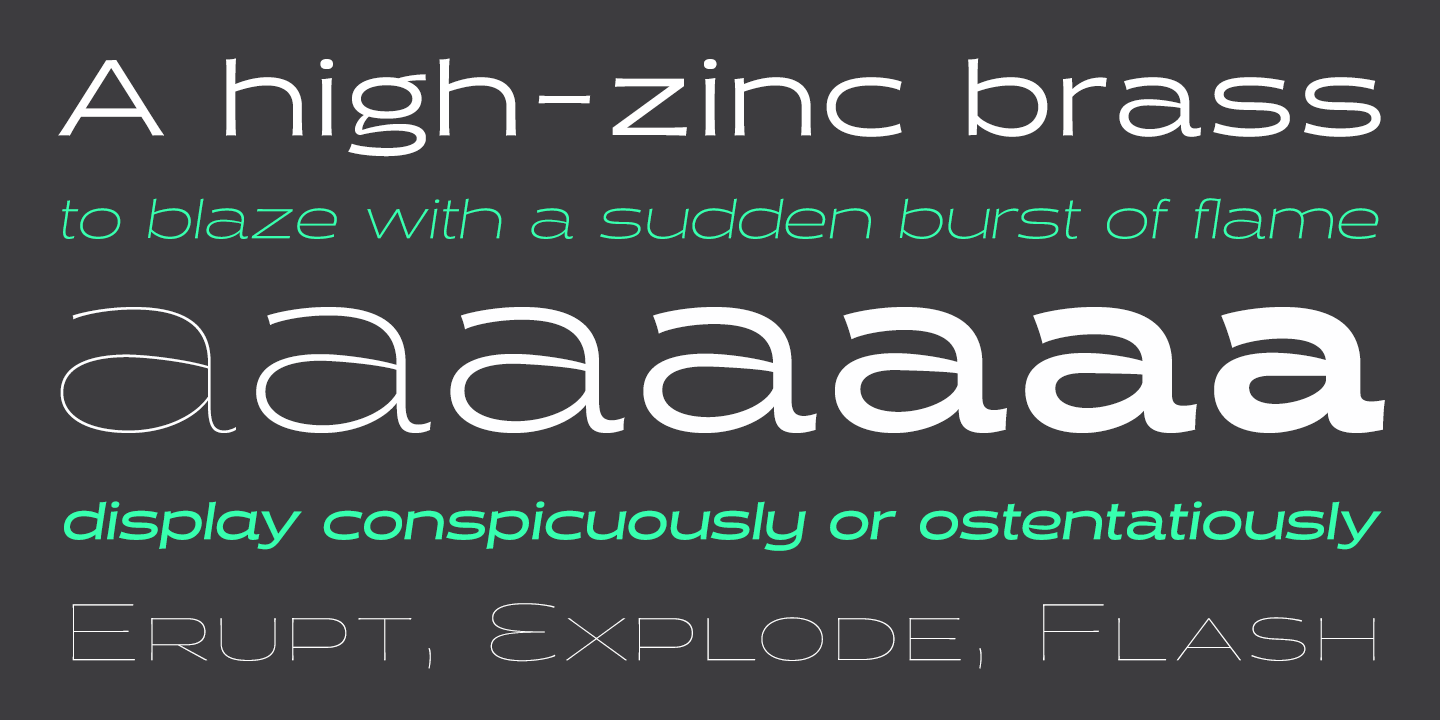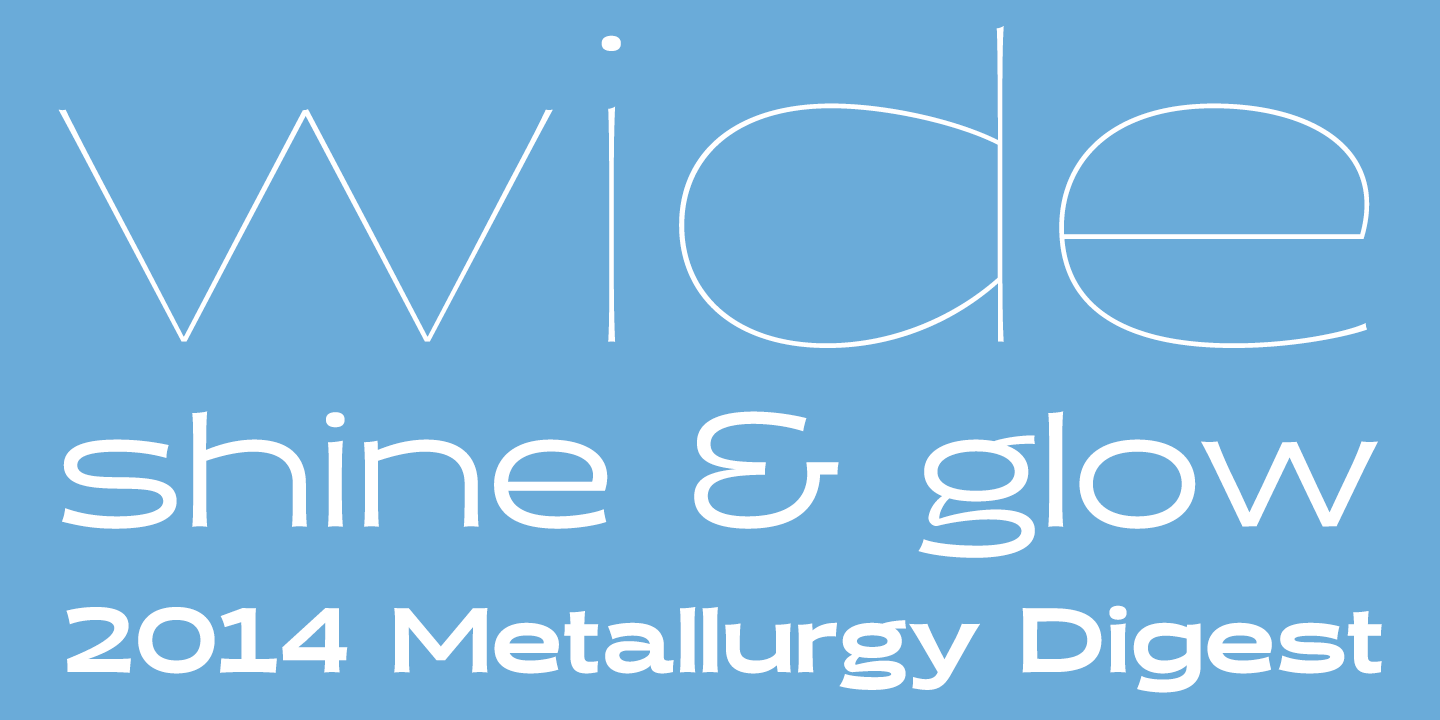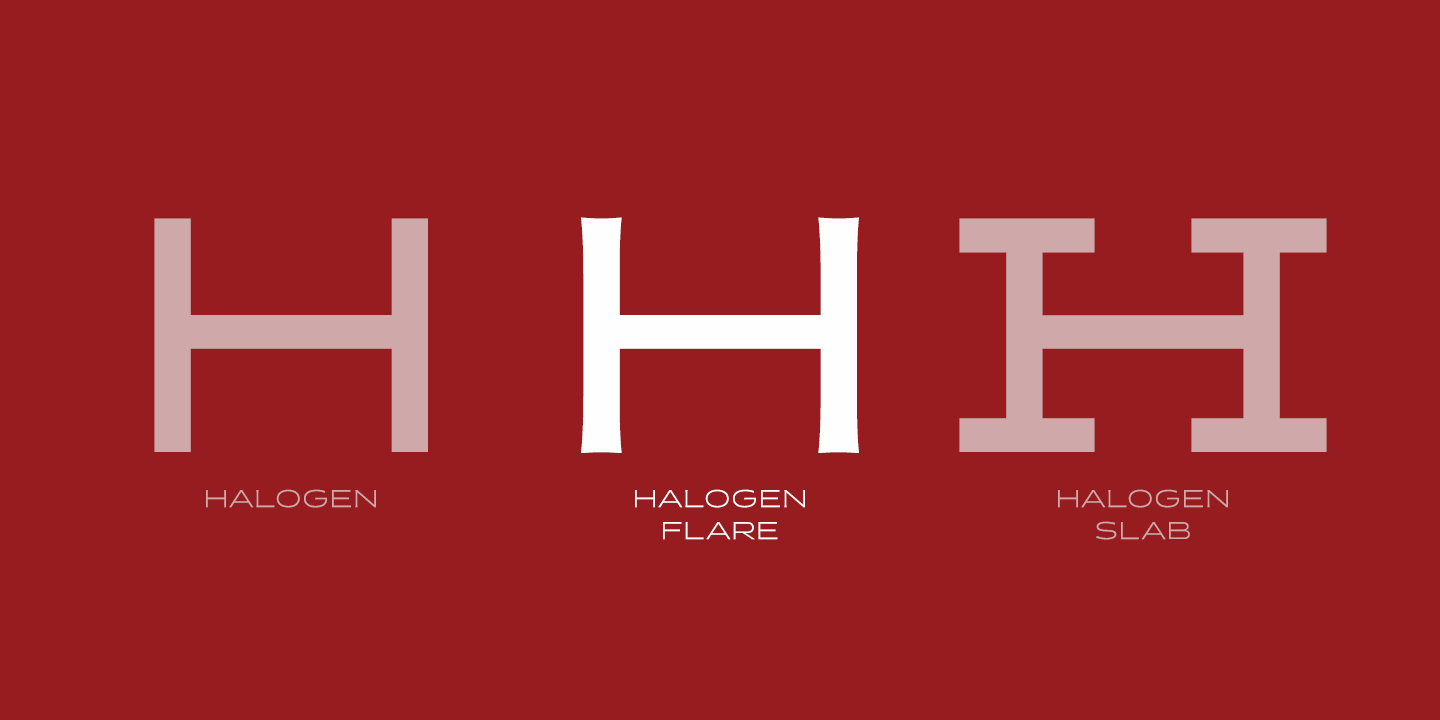
Halogen Flare
Font Family by Positype
When I released Halogen, I asked ?Who doesn't want or need an expansive contemporary extended sans that has a sense of style and swagger? what if it had a lowercase, small caps and various numeral options? how could you say no?? Go, click on the Halogen link and read on, if you're interested. Halogen was well-received, so I decided to take it further with Halogen Flare (the name kinda tips you off as to what kind of typeface it is, don't ya think?). As always, I prefer not to take short cuts and provide an anemic offering of glyphs ? a modern typeface offered today must provide more than just the basics and this one does ? lowercase, smallcaps, old style numerals, tabular forms, stylistic and titling alternates, fractions, case-sensitive features, and even an alternate uppercase ordinal set is included. Now, go make cool print and digital things with it.